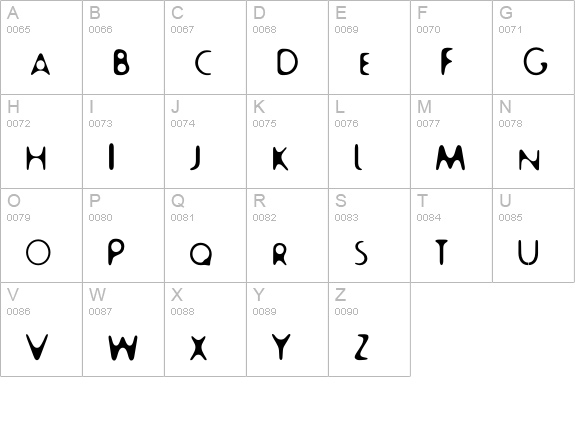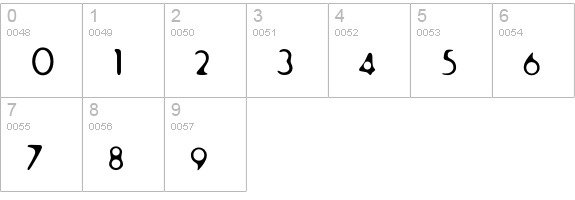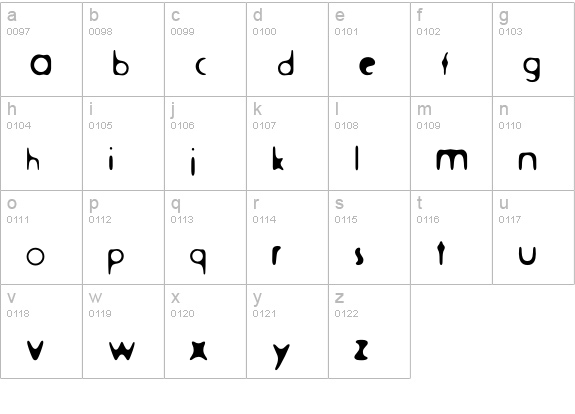
Fur-ExtraRounded-Light is a refined, elegant variant in the Fur typeface family \xE2\x80\x94 well suited to elegant body text, refined sub-headings, and luxury branding.
Fur-ExtraRounded-Light is a delightful and modern font that exudes elegance and sophistication. Its rounded edges give it a friendly and inviting appearance, perfect for conveying a warm and approachable message. This typeface is well-suited for a variety of design projects, from branding and packaging to editorial and web design. What makes Fur-ExtraRounded-Light even more appealing is that it is available for free download at FontsMarket.com. This means that you can easily access this stylish font without any cost, making it a valuable addition to your font library. Don't miss out on the opportunity to enhance your designs with the charm and versatility of Fur-ExtraRounded-Light - download it for free today!